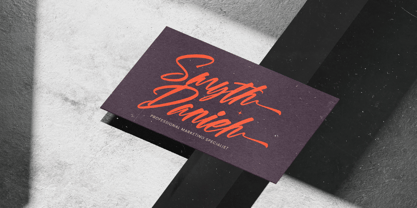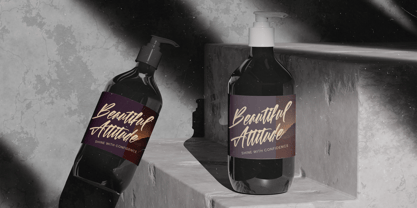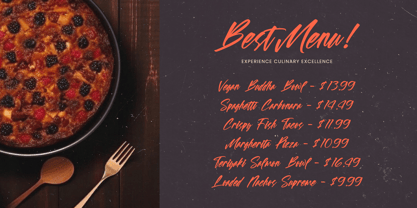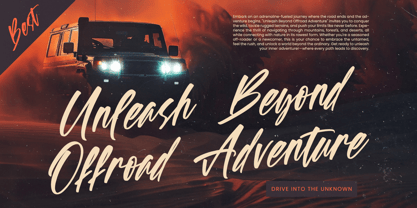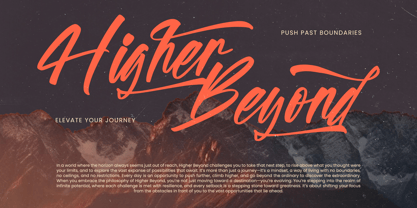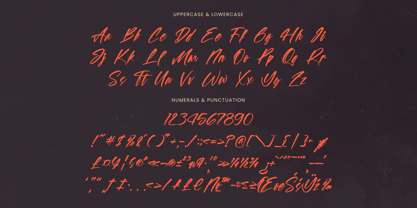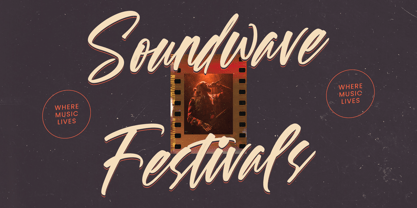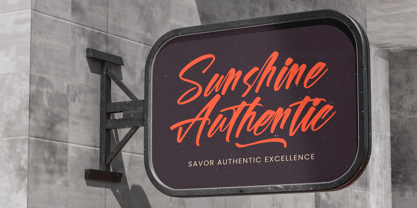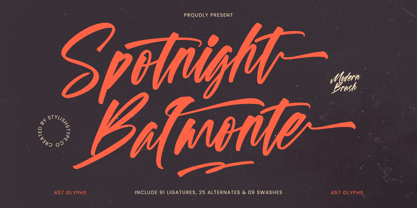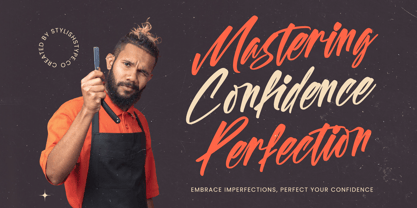
Spotnight Balmonte
by Stylishtype Studio
The Spotnight Balmonte Font Family was designed by Heru Utama Putra and published by Stylishtype Studio. Spotnight Balmonte contains 2 styles and family package options. More about this family
Spotnight Balmonte - Modern Brush Font , from Stylishtype, Suitable for any projects such as: logos, branding projects, homeware designs, product packaging, mugs, quotes, posters, shopping bags, t-shirts, book covers, name card, invitation cards, greeting cards, label, photography, watermark, special events, and all your other luxury and beautiful projects that need a Luxury Script taste.